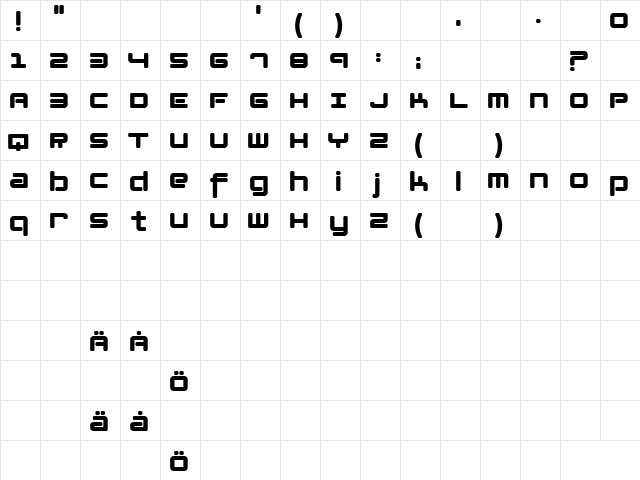
Lotusflower Regular
Design Context for Lotusflower Typeface
Lotusflower is a composed and adaptable typeface that performs quietly and consistently across a wide range of design contexts.